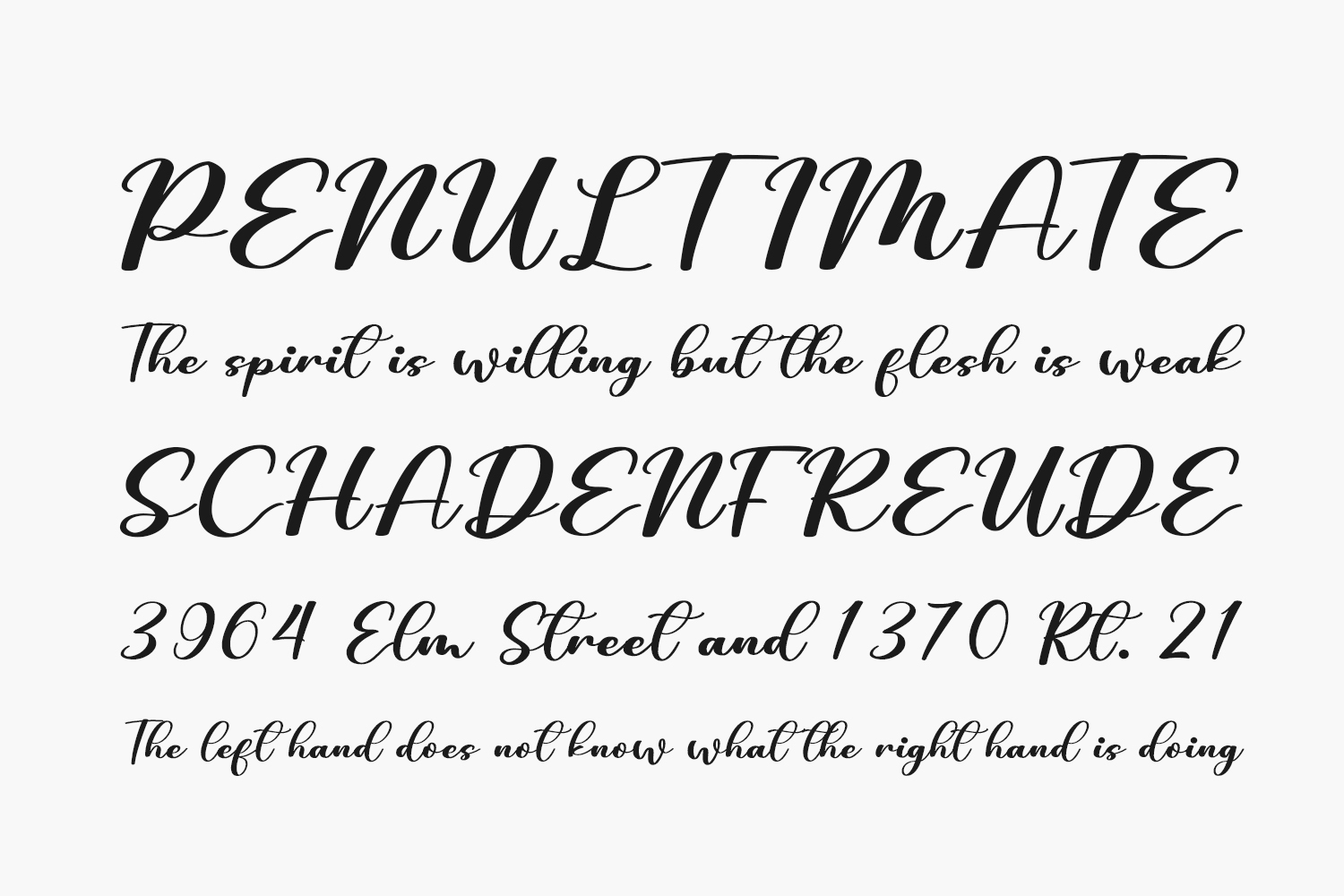
Welcome is a bold and expressive script font designed by Nirmala Creative to bring strong visual impact to your creative projects. With its dramatic strokes, high contrast, and flowing curves, this free decorative typeface works perfectly for crafting elegant logos, greeting cards, social media quotes, wedding invitations, and more. Available in OTF and TTF formats — ideal for designers seeking a modern handwritten font that commands attention while maintaining clarity.
Why Choose Welcome?
- Bold Handwritten Style: Combines thick and thin strokes for an elegant, dynamic appearance.
- Ideal for Invitations: Perfect for RSVP cards, formal stationery sets, or event banners needing a personal touch.
Where to Use Welcome?
Welcome shines across a variety of creative applications:
- Logos & Branding: Adds sophistication to brand identities for lifestyle blogs, fashion labels, or boutique shops.
- Social Media Quotes: Creates bold text overlays for Instagram Stories, Pinterest pins, TikTok videos, or YouTube thumbnails.
- Wedding Invitations: Brings warmth and elegance to formal stationery sets, envelopes, and bridal name typography with a hand-drawn appeal.
- Packaging Design: Ideal for product labels on candles, perfumes, or handmade goods requiring a refined appearance.
- Editorial Headers: Stands out in blog headers, magazine covers, and advertising campaigns needing a stylish tone.
Design Tips with Welcome
Designed by Nirmala Creative